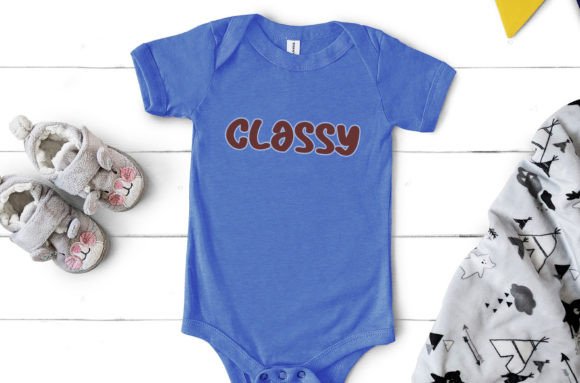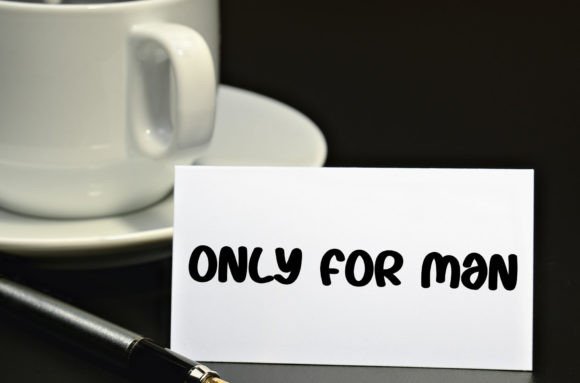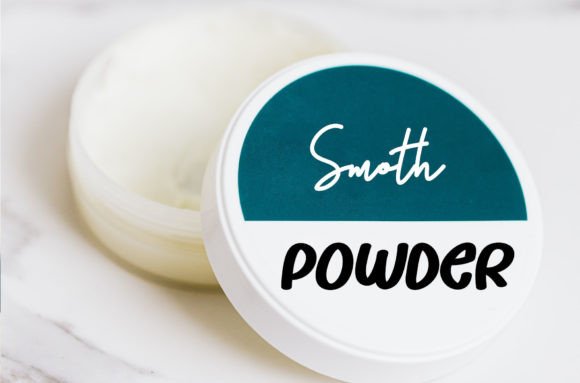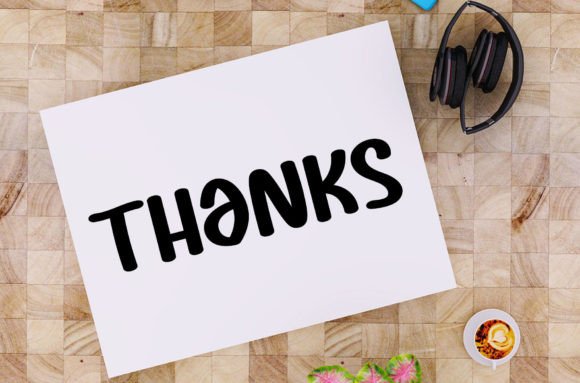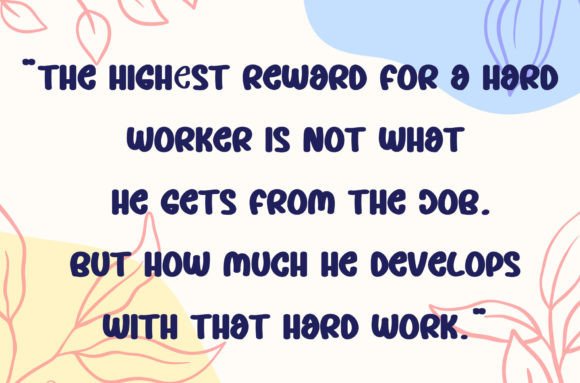
Camera Font
Camera Handwritten Font – Beautiful and Creative Typeface
The Camera Handwritten Font is a stylish and beautiful typeface designed to bring creativity and elegance to your projects. With its natural handwritten strokes and smooth flow, it is perfect for designers who want their work to look personal yet polished. Whether used in magazines, crafts, or digital design, this font adds sophistication and originality.
A Handwritten Font with Stylish Appeal
The Camera Handwritten Font captures the charm of natural handwriting while maintaining clarity and elegance. Its soft curves and balanced shapes make it versatile for various design purposes. From modern branding to handmade crafts, this font creates a connection between authenticity and professionalism.
Perfect for Magazines and Crafts
The Camera Handwritten Font is especially well-suited for editorial layouts, magazine titles, and decorative headlines. Its artistic strokes give text a stylish appearance that captures attention instantly. At the same time, it works beautifully for DIY crafts, greeting cards, and handmade invitations, making it a versatile choice for designers.
Versatility Across Creative Projects
One of the reasons designers love this font is its adaptability. The Camera Handwritten Font works well for posters, branding, product packaging, and social media graphics. Its flowing handwritten style makes it a dependable option for both professional projects and personal creative work.
Why Designers Choose Camera Font
Designers appreciate fonts that combine style with readability. The Camera Handwritten Font provides that balance, offering beauty without sacrificing clarity. Its elegant handwritten look ensures that it fits a wide range of themes, from formal invitations to playful creative projects.